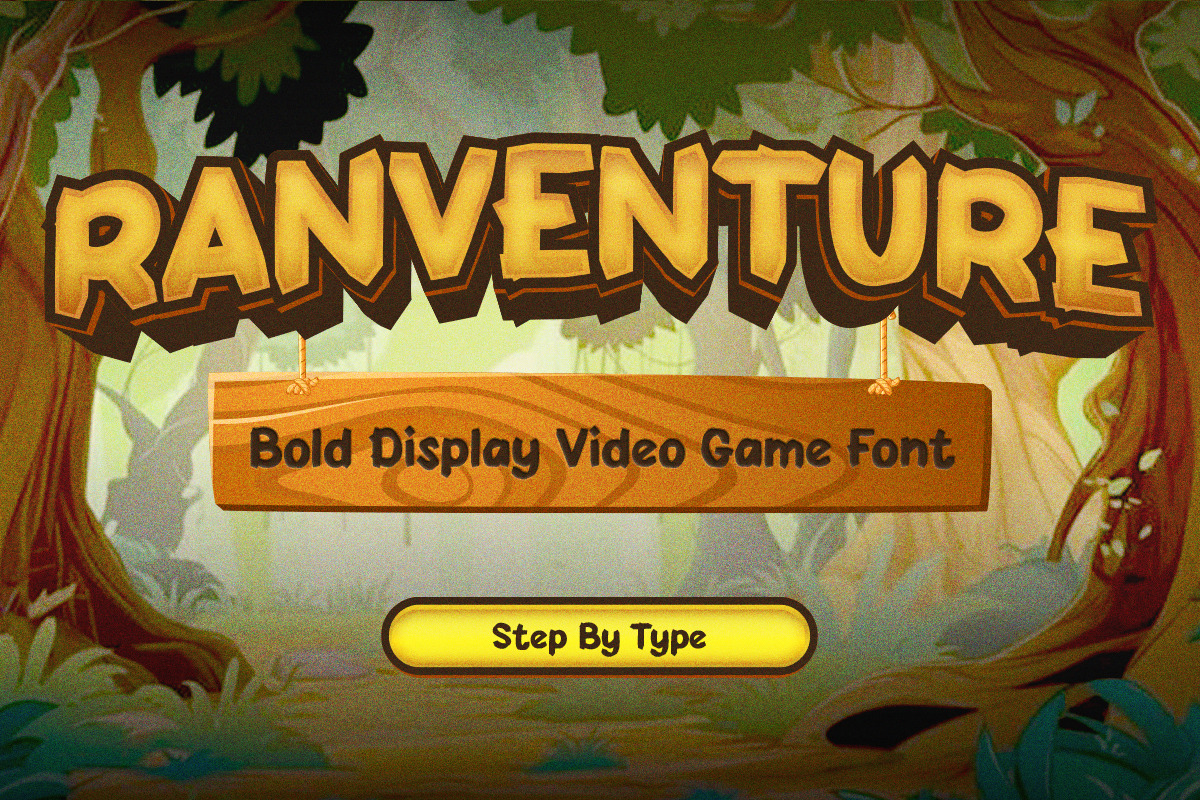
Ranventure - Bold Display Font
Ranventure is a bold display font crafted for video games, fantasy worlds, and adventurous branding. Featuring chunky letterforms, carved edges, and dynamic proportions, it captures the spirit of classic platformers, RPGs, mobile games, and animated adventures. Every character is designed to feel strong, playful, and full of exploration, making your titles instantly recognizable.
Whether you're creating game logos, level titles, streaming graphics, YouTube thumbnails, children's books, toy packaging, or fantasy-themed branding, Ranventure delivers a bold visual identity with a fun, heroic personality. Its versatile style blends perfectly with jungle, medieval, pirate, treasure, magic, and cartoon-inspired themes, making it an excellent choice for projects that need excitement and imagination.
Designed for maximum impact, Ranventure is ideal for large headlines and logos while remaining highly legible across both digital and print media.